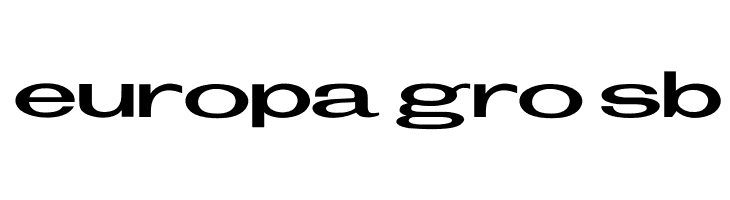
A bold, decorative font with a vintage flair and strong presence.
A bold, high-contrast serif font with elongated characters for dramatic impact.
An ornate and intricate Old English style font with bold, angular letterforms.
A classic serif font with elegant, well-defined characters and sharp serifs.
A bold, modern font with thick, uniform strokes for a strong visual impact.
A classic serif font with elegant strokes and versatile design.
A bold, geometric font with clean lines and a modern aesthetic.
A modern, geometric font with consistent stroke width and a clean design.
A bold, geometric typeface with strong, blocky characters.
An elegant serif font with a medieval flair and sharp, pointed serifs.
A classic serif font with elegant, elongated strokes and subtle curves.
An elegant script font with flowing, cursive letters and medium contrast.
An elegant and ornate script font with flowing, cursive letterforms.
A bold, slab serif font with a strong, geometric design.
A medium-weight serif font with a blend of traditional and modern elements.
A bold, decorative typeface with whimsical curves and exaggerated serifs.
A bold, geometric font with a 3D effect and modern, industrial style.
A bold, playful font with whimsical, exaggerated shapes and strong presence.
A bold, slanted font with a distinctive cut through each character, exuding a modern and dynamic style.
A bold, classic serif font with elegant proportions and strong strokes.
A classic serif font with elegant, thin strokes and high contrast.
A classic serif typeface with elegant strokes and refined design.
A classic serif typeface with elegant, flowing lines and refined proportions.
An elegant, bold italic serif font with a classic yet modern style.
A light, italic serif font with elegant slant and classic details.
An elegant serif font with a classic italic style and medium weight.
An elegant italic serif font with smooth, flowing lines and a refined appearance.
A classic serif font with high contrast and elegant serifs.
A bold, modern font with strong, impactful characters ideal for headlines.
A bold, modern sans-serif font with clean lines and geometric structure.
A bold, italic script font with a dynamic and modern style.
An elegant script font with intricate, flowing letterforms and decorative flourishes.
An elegant and modern font with tall, slender characters and artistic strokes.
A bold, clean font with strong lines and excellent legibility.